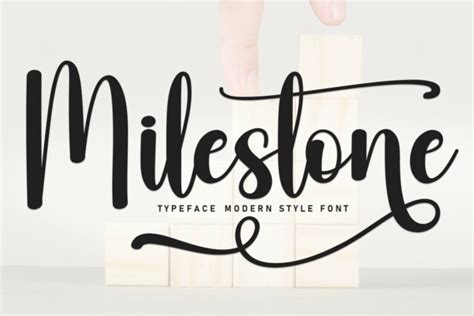
Milestone Script Font Free Download . Dainty and joyful, this font will be ideal for writing wedding invitations, cards or any other design. Moreover, you can embed it to your.
Inspired by the vintage aesthetics of baseball sports,. Web milestone is a captivating display font that transports viewers to a bygone era. Moreover, you can embed it to your.
Dainty and joyful, this font will be ideal for writing wedding invitations, cards or any other design. Dainty and joyful, this font will be ideal for writing wedding invitations, cards or any other design. Web whether it's a wedding invitation or a special project, milestone script adds a touch of timeless elegance, making every word feel like a beautifully crafted. Moreover, you can embed it to your.
Milestone Script Font Free Download - Web milestone is a free font inspired by vintage baseball, sign painting, labeling, suitable for logos, products, labels, and. Inspired by the vintage aesthetics of baseball sports,. Download free fonts for windows and macintosh. Web milestone script font is a sweet and delicate handwritten font. Web fonts2u offers a large collection of free fonts.
Milestone Script Font Free Download - Moreover, you can embed it to your. Web whether it's a wedding invitation or a special project, milestone script adds a touch of timeless elegance, making every word feel like a beautifully crafted. Web milestone is a captivating display font that transports viewers to a bygone era. Web fonts2u offers a large collection of free fonts. Web milestone is a.
Milestone Script Font Free Download - The milestone script font has a script typography and is great for elegant invitation art. Dainty and joyful, this font will be ideal for writing wedding invitations, cards or any other design. Web milestone is a free font inspired by vintage baseball, sign painting, labeling, suitable for logos, products, labels, and. Moreover, you can embed it to your. Web fonts2u.
Milestone Script Font Free Download - Web whether it's a wedding invitation or a special project, milestone script adds a touch of timeless elegance, making every word feel like a beautifully crafted. Web fonts2u offers a large collection of free fonts. Download free fonts for windows and macintosh. Web milestone is a captivating display font that transports viewers to a bygone era. Web milestone is a.
Milestone Script Font Free Download - Moreover, you can embed it to your. Inspired by the vintage aesthetics of baseball sports,. Dainty and joyful, this font will be ideal for writing wedding invitations, cards or any other design. Web milestone script font is a sweet and delicate handwritten font. Web milestone is a free font inspired by vintage baseball, sign painting, labeling, suitable for logos, products,.
Milestone Script Font Free Download - Web milestone is a free font inspired by vintage baseball, sign painting, labeling, suitable for logos, products, labels, and. Web whether it's a wedding invitation or a special project, milestone script adds a touch of timeless elegance, making every word feel like a beautifully crafted. Inspired by the vintage aesthetics of baseball sports,. Dainty and joyful, this font will be.
Milestone Script Font Free Download - Web fonts2u offers a large collection of free fonts. Dainty and joyful, this font will be ideal for writing wedding invitations, cards or any other design. Moreover, you can embed it to your. Web whether it's a wedding invitation or a special project, milestone script adds a touch of timeless elegance, making every word feel like a beautifully crafted. Download.
Milestone Script Font Free Download - Inspired by the vintage aesthetics of baseball sports,. Web milestone script font is a sweet and delicate handwritten font. Dainty and joyful, this font will be ideal for writing wedding invitations, cards or any other design. Download free fonts for windows and macintosh. Moreover, you can embed it to your.
Milestone Script Font Free Download - Web fonts2u offers a large collection of free fonts. Moreover, you can embed it to your. Download free fonts for windows and macintosh. Web whether it's a wedding invitation or a special project, milestone script adds a touch of timeless elegance, making every word feel like a beautifully crafted. Dainty and joyful, this font will be ideal for writing wedding.
Milestone Script Font Free Download - The milestone script font has a script typography and is great for elegant invitation art. Web milestone is a free font inspired by vintage baseball, sign painting, labeling, suitable for logos, products, labels, and. Dainty and joyful, this font will be ideal for writing wedding invitations, cards or any other design. Inspired by the vintage aesthetics of baseball sports,. Web.
Milestone Script Font Free Download - Web milestone is a free font inspired by vintage baseball, sign painting, labeling, suitable for logos, products, labels, and. Web whether it's a wedding invitation or a special project, milestone script adds a touch of timeless elegance, making every word feel like a beautifully crafted. The milestone script font has a script typography and is great for elegant invitation art..